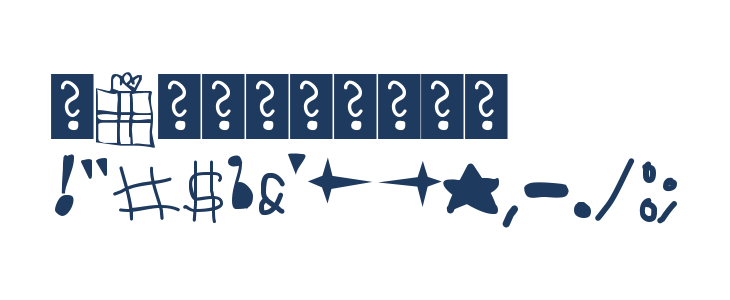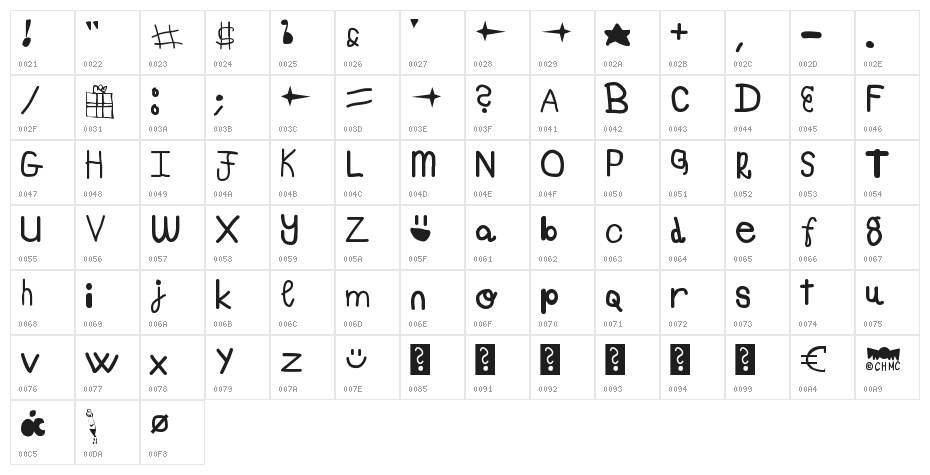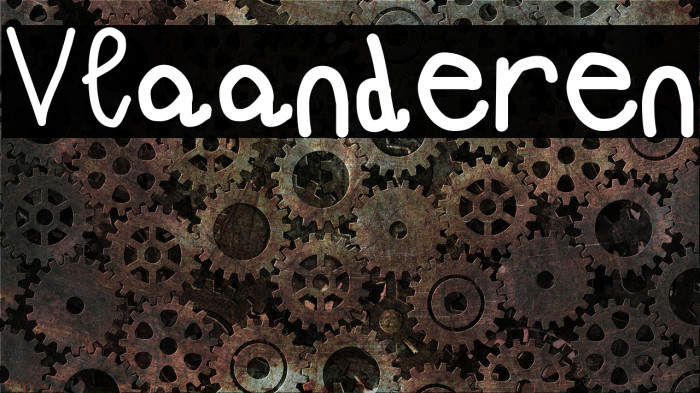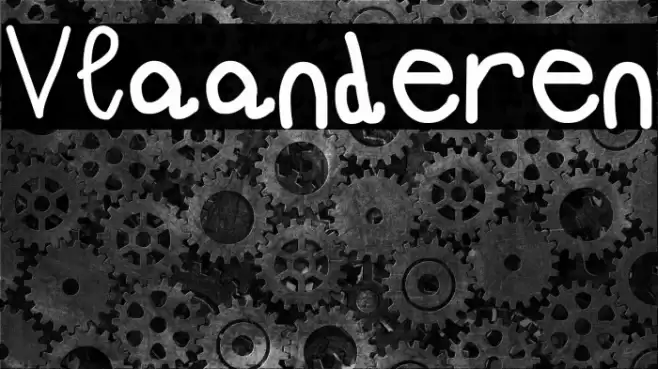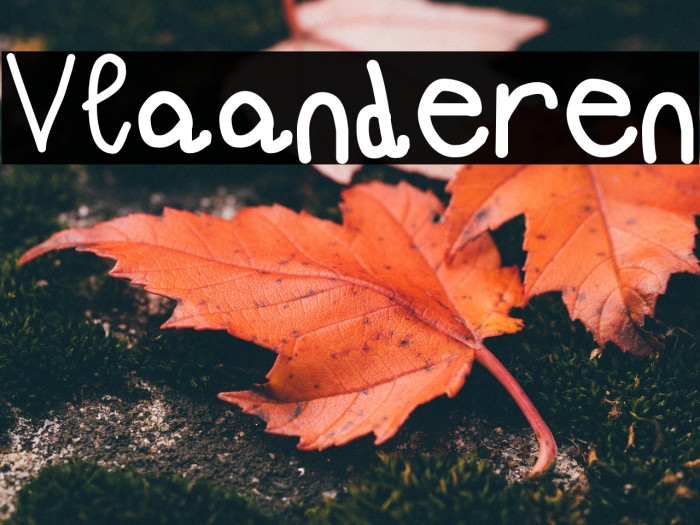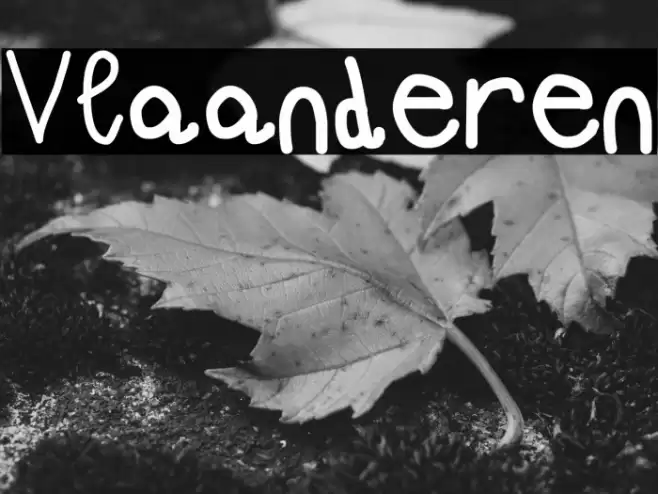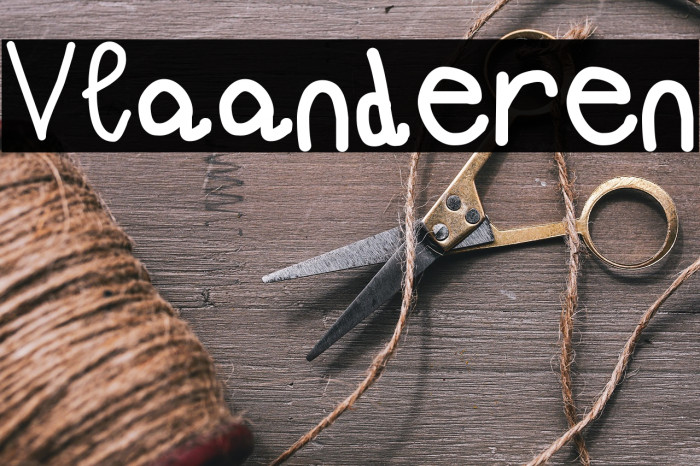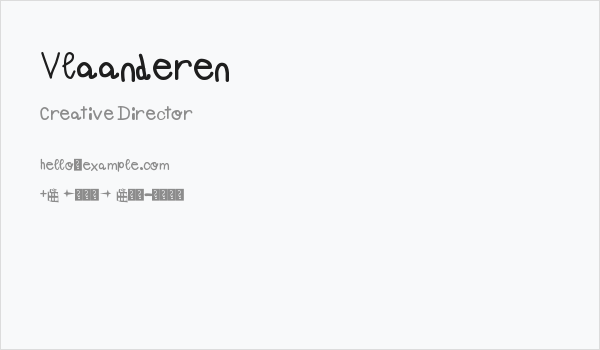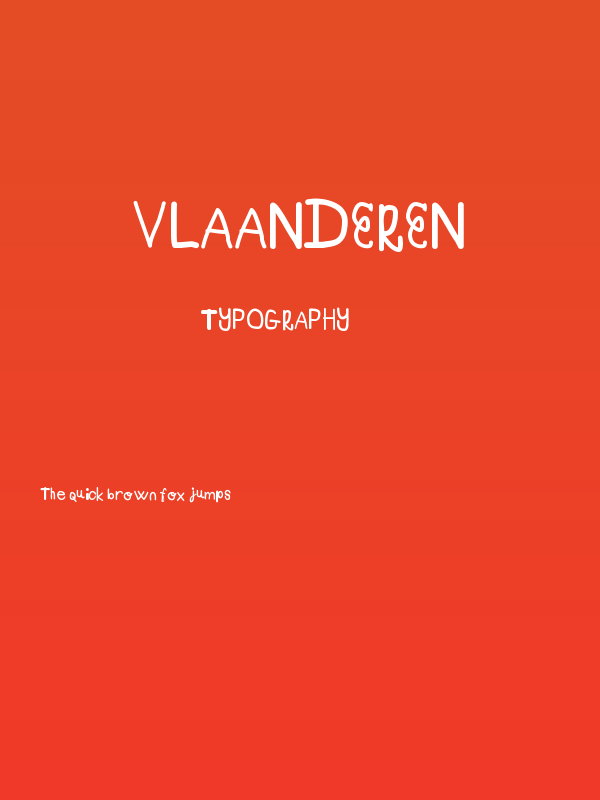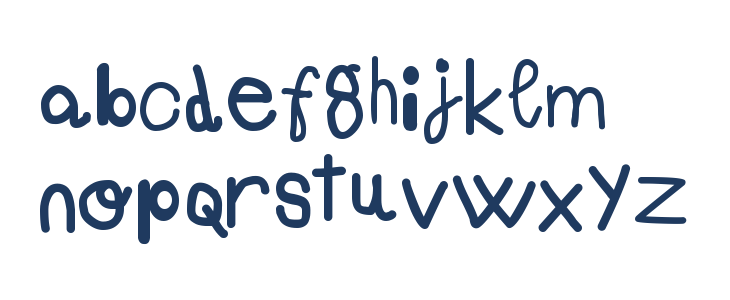
Vlaanderen Font
Vlaanderen Description
This playful and whimsical font features a hand-drawn style with irregular, organic shapes. The letters have a casual, friendly appearance, with varying stroke widths that add to its charm. The uppercase and lowercase letters are distinct yet maintain a cohesive look, making it suitable for creative and informal projects. The font includes a variety of special characters, enhancing its versatility. Its unique style can add a touch of fun and creativity to any design.
| Proposed Projects | Ideal for children's books, greeting cards, playful branding, and creative posters. |